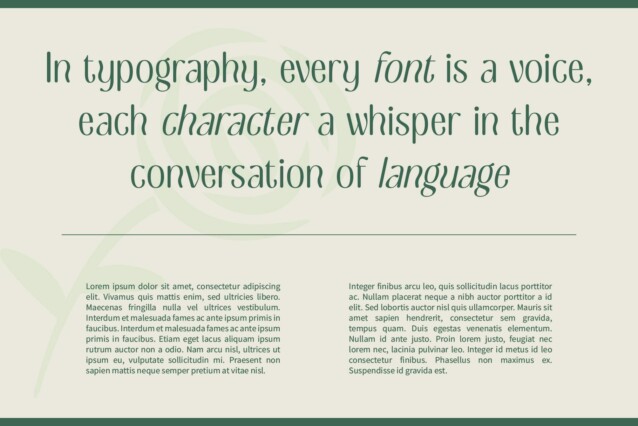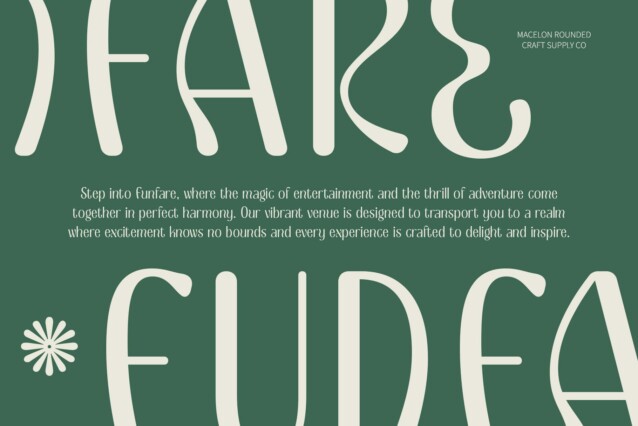
Macelon Rounded Font
Macelon Rounded Font is a modern display sans-serif font that beautifully incorporates Art Nouveau influences through its rounded shapes and smooth curves. This design merges contemporary simplicity with the graceful, flowing aesthetics of early 20th-century art. The refined details and rounded forms of Macelon Rounded create a sophisticated and elegant appearance, making it ideal for designs that seek a blend of modernity and classic charm.